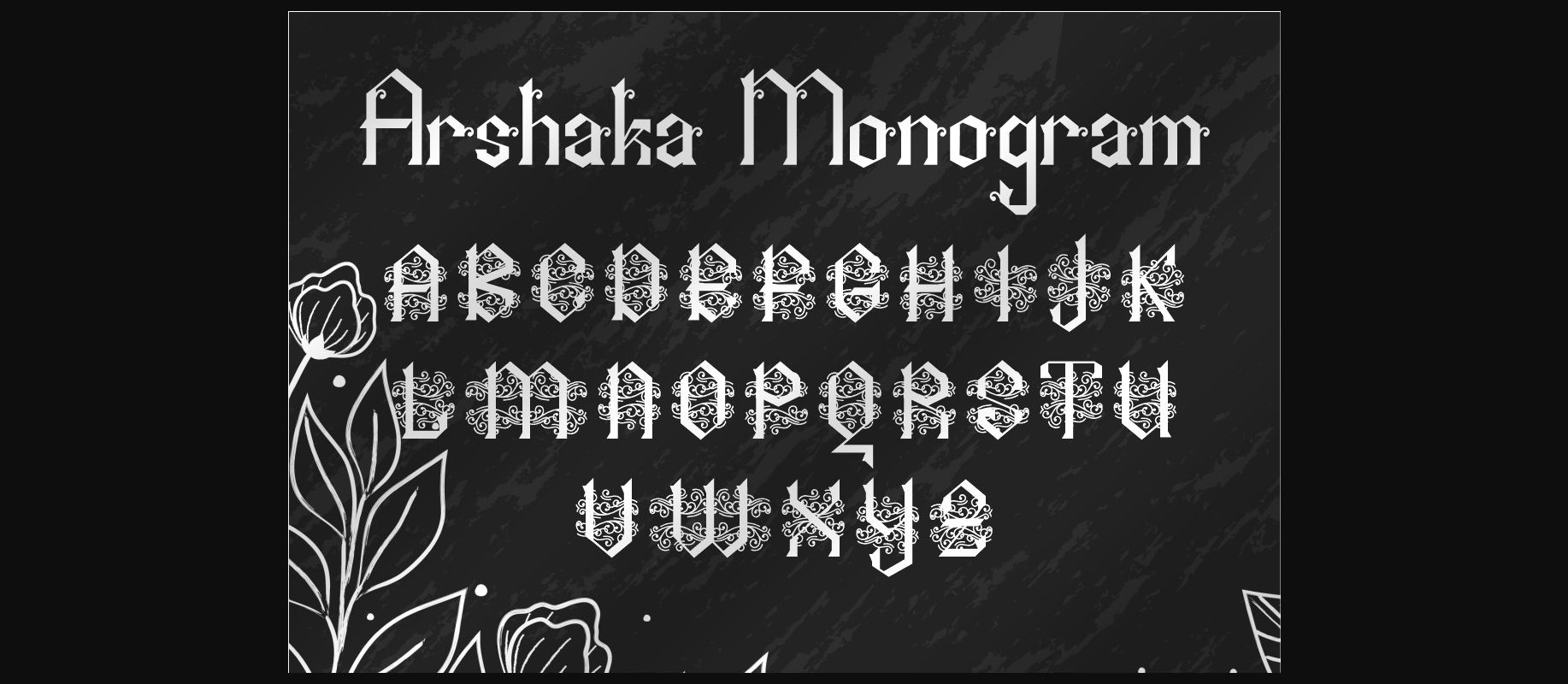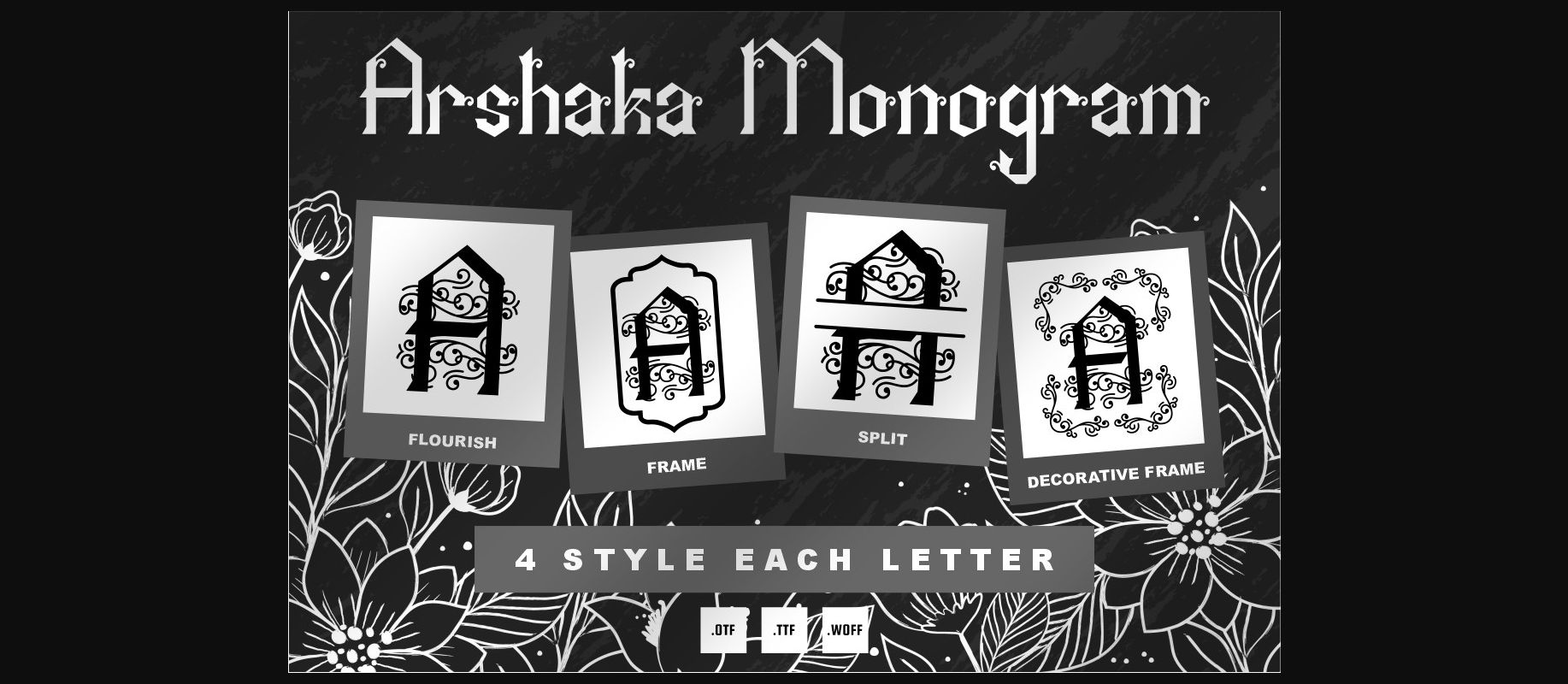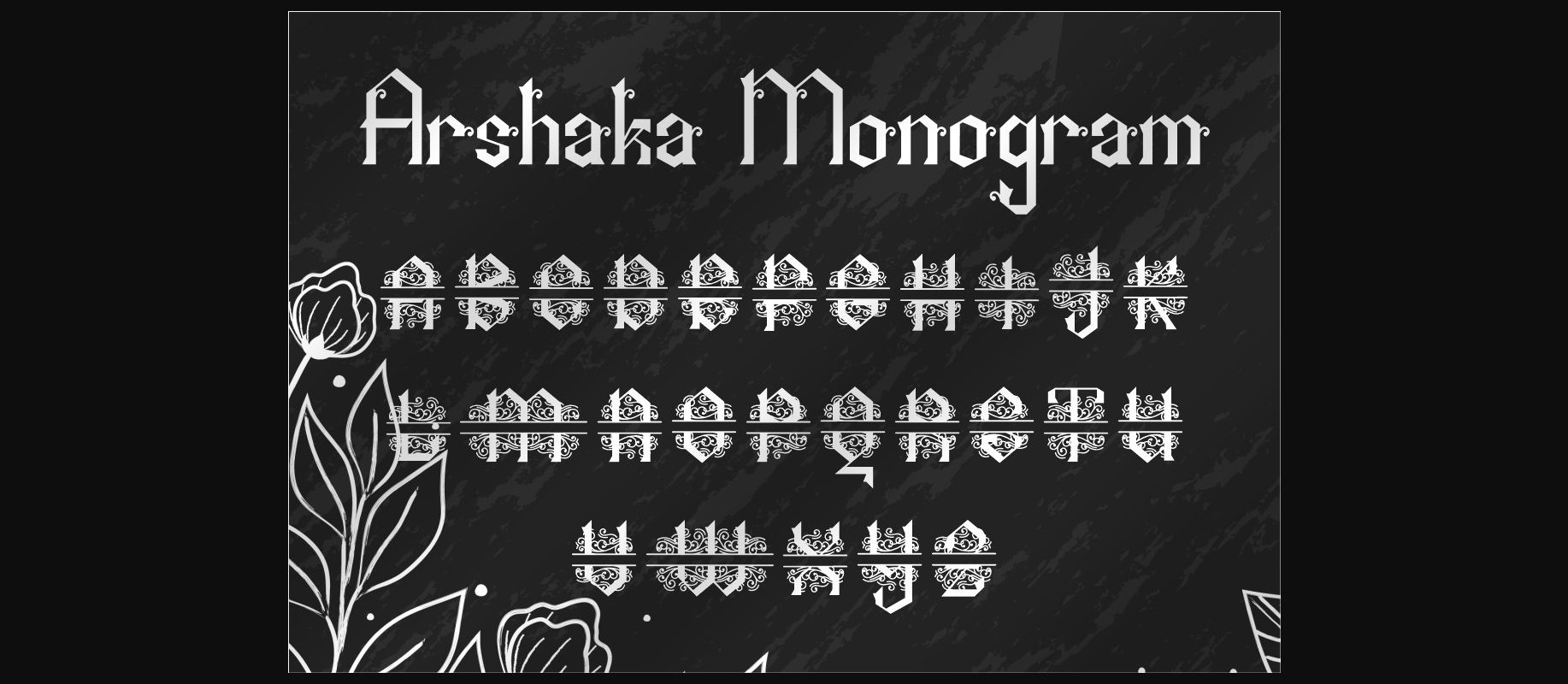
Arshaka Monogram Font
About Arshaka Monogram Font
Arshaka Monogram is a bold decorative font. This font is neatly crafted and highly detailed. Whatever the topic, Arshaka Monogram will be a wonderful asset to your font library, as it has the potential to enhance any creation.